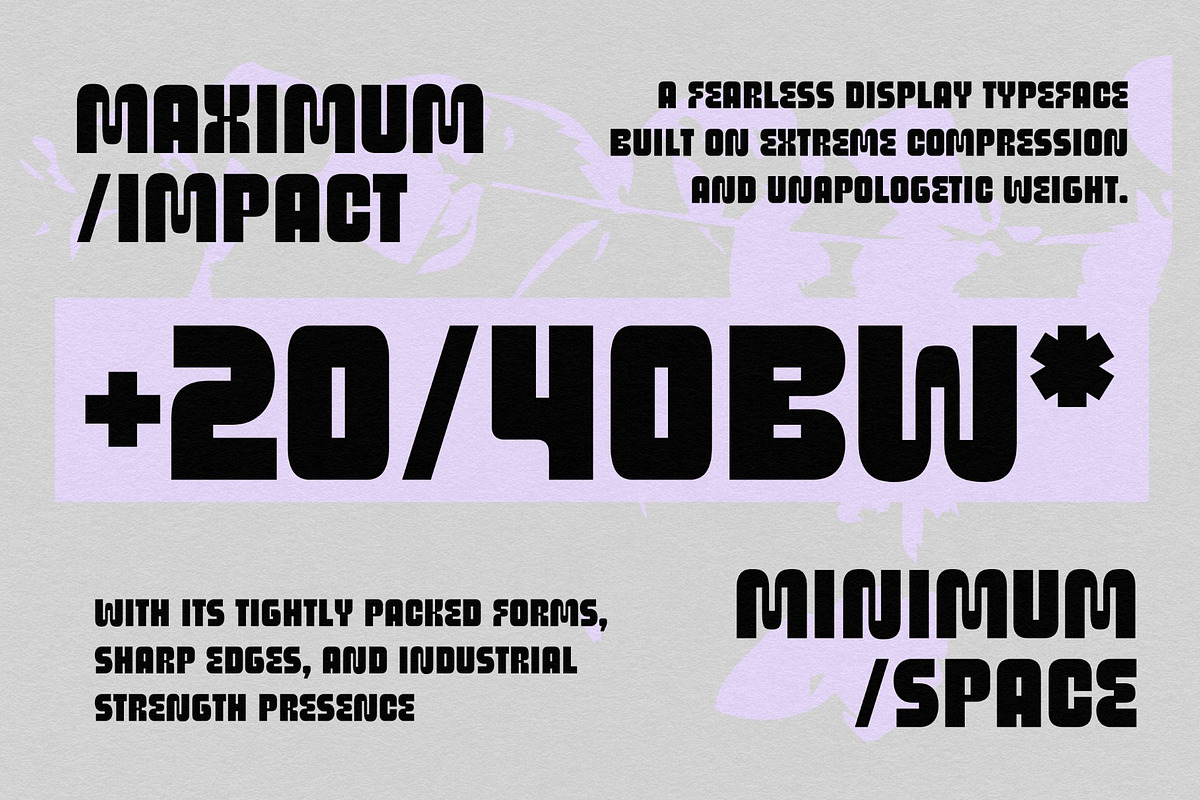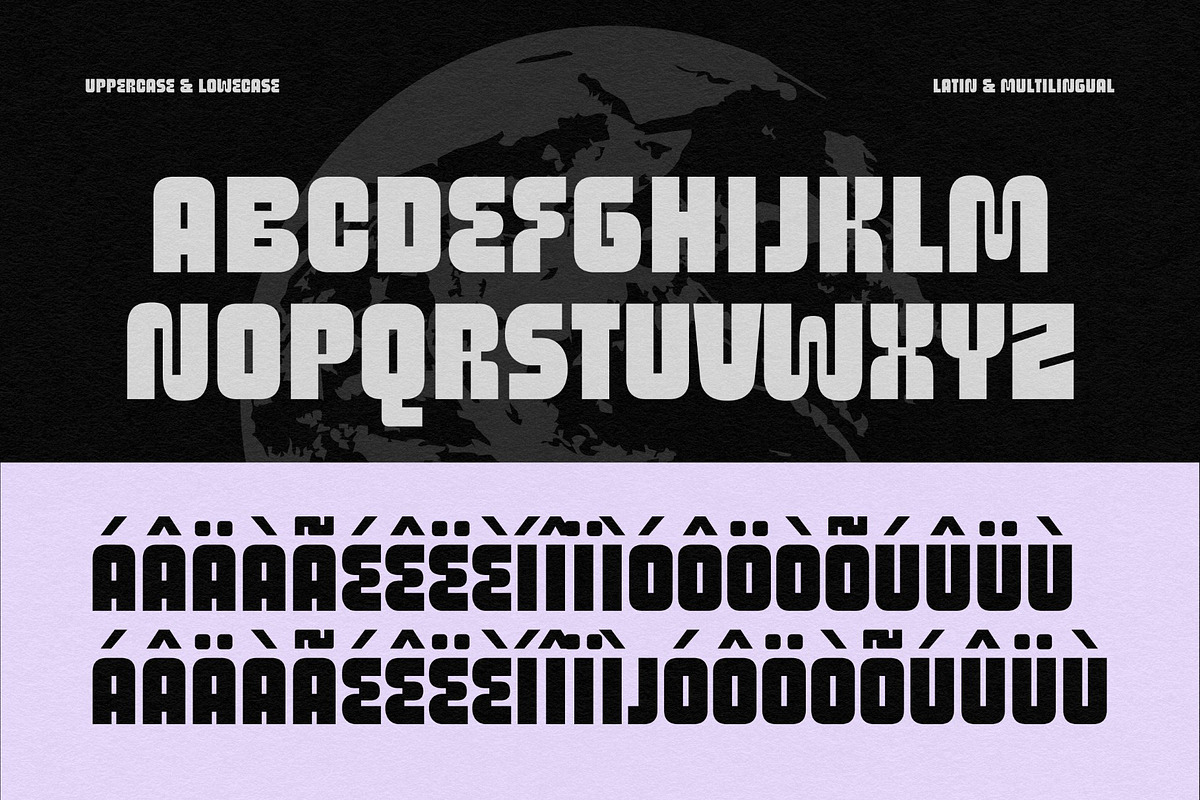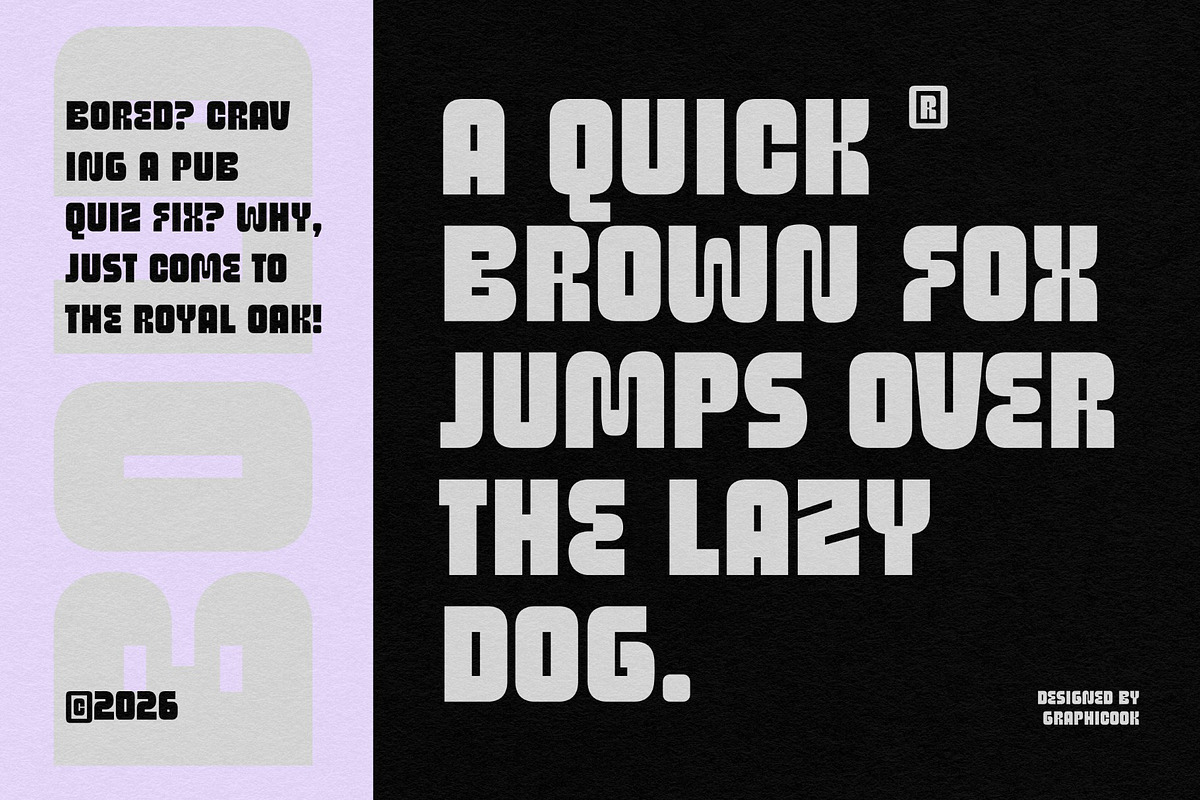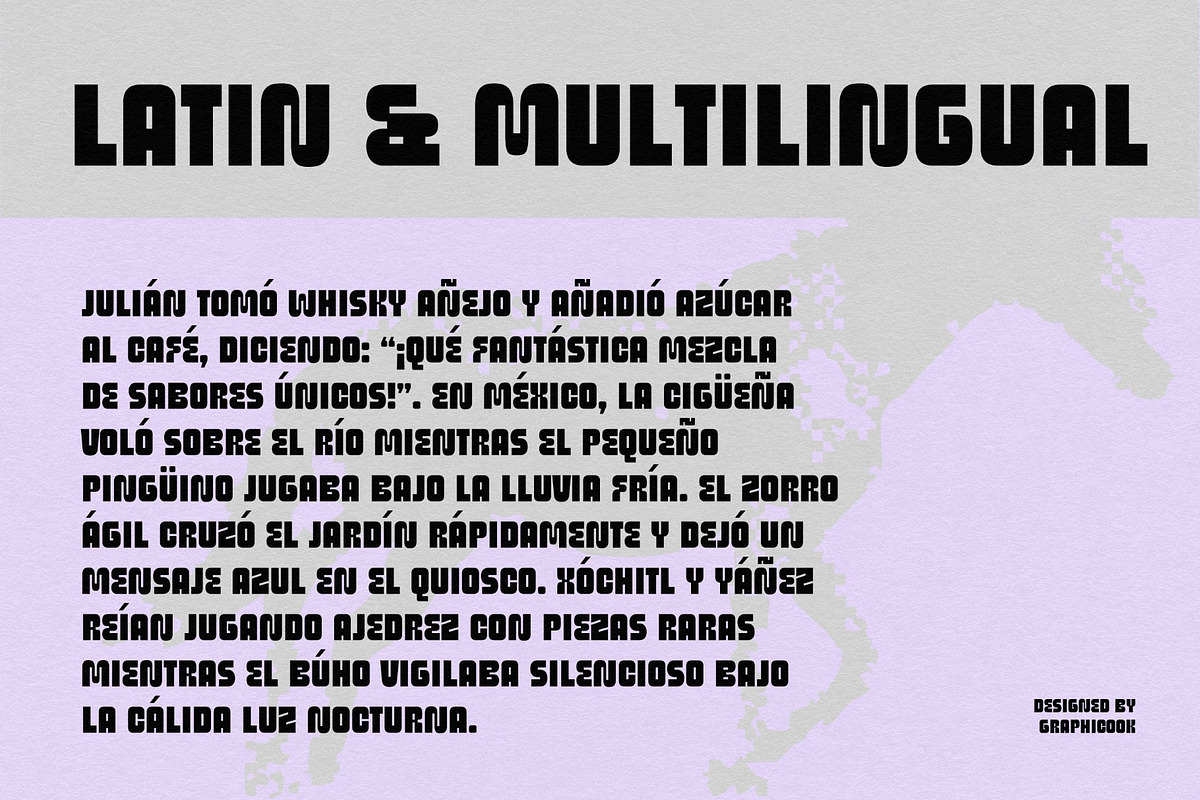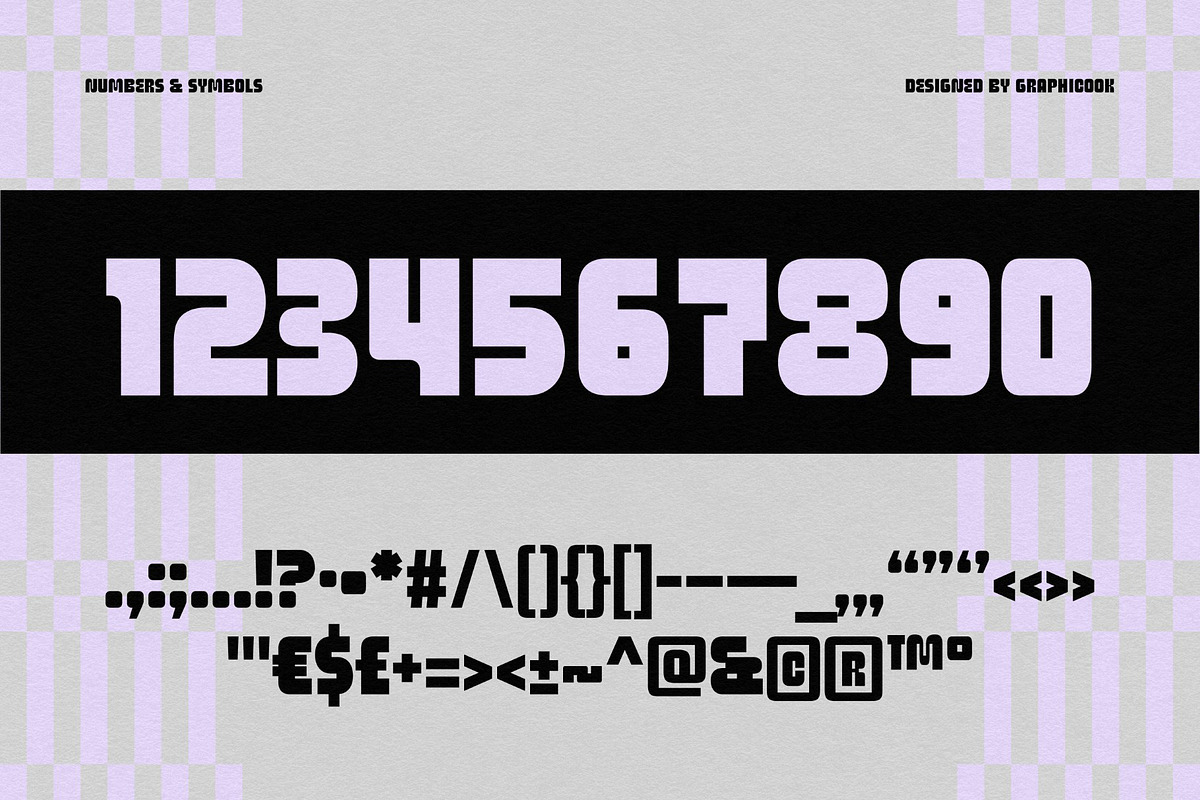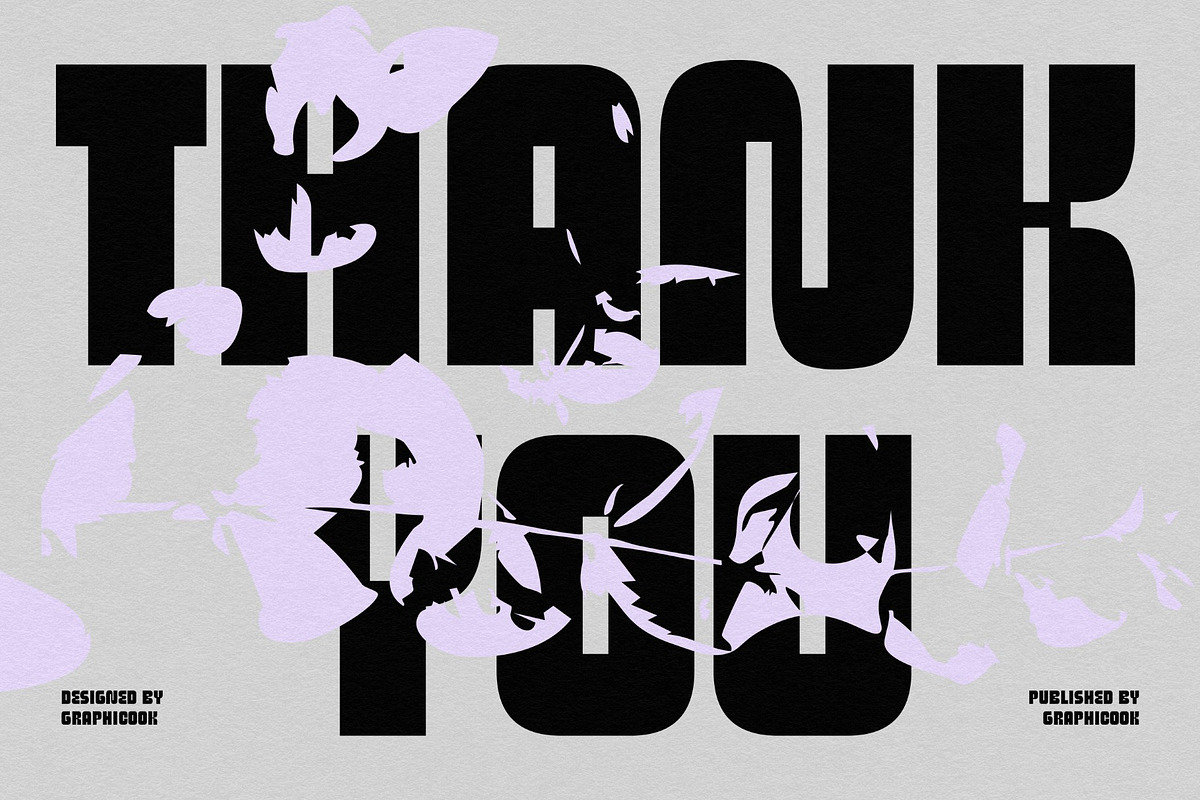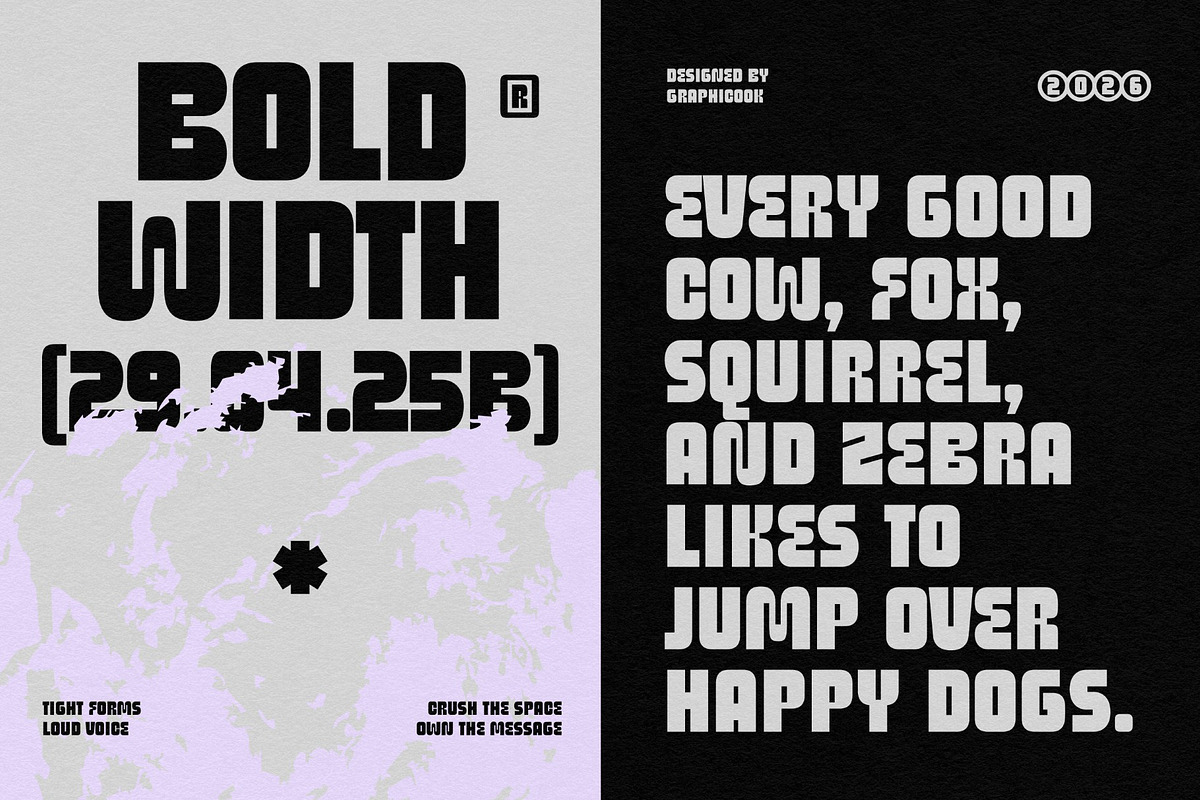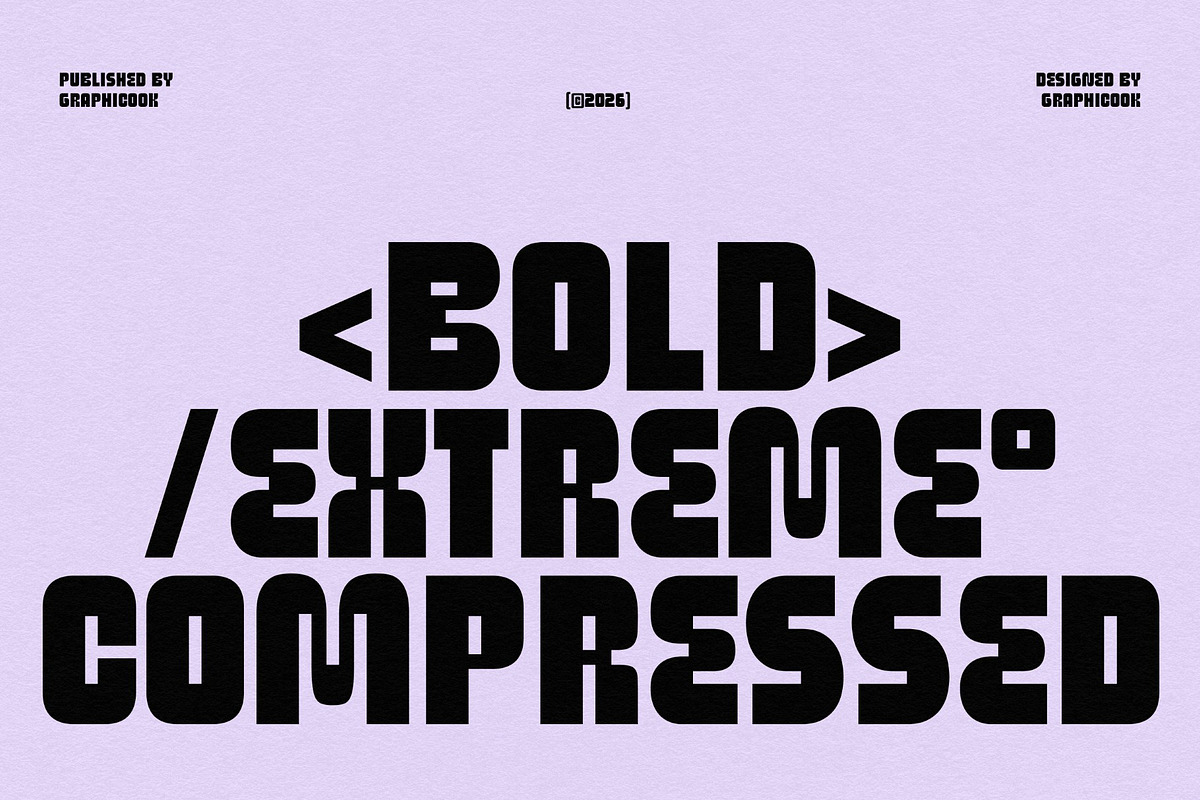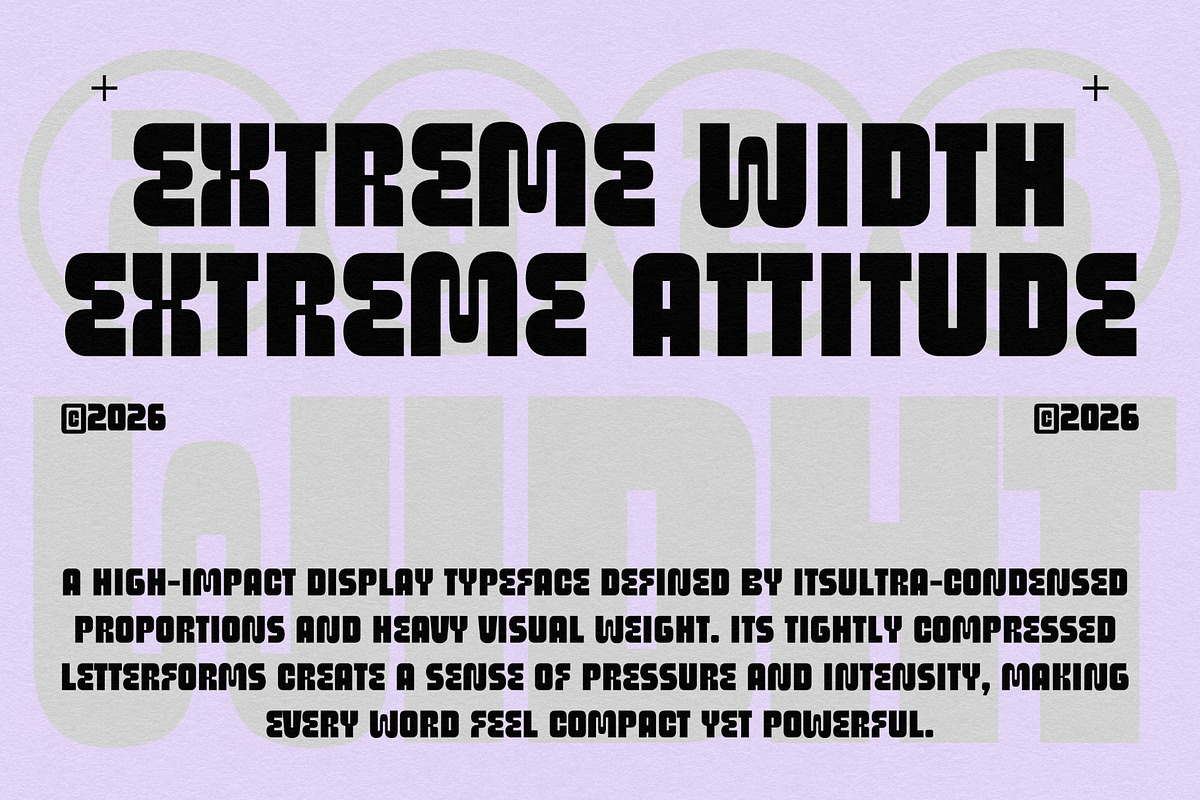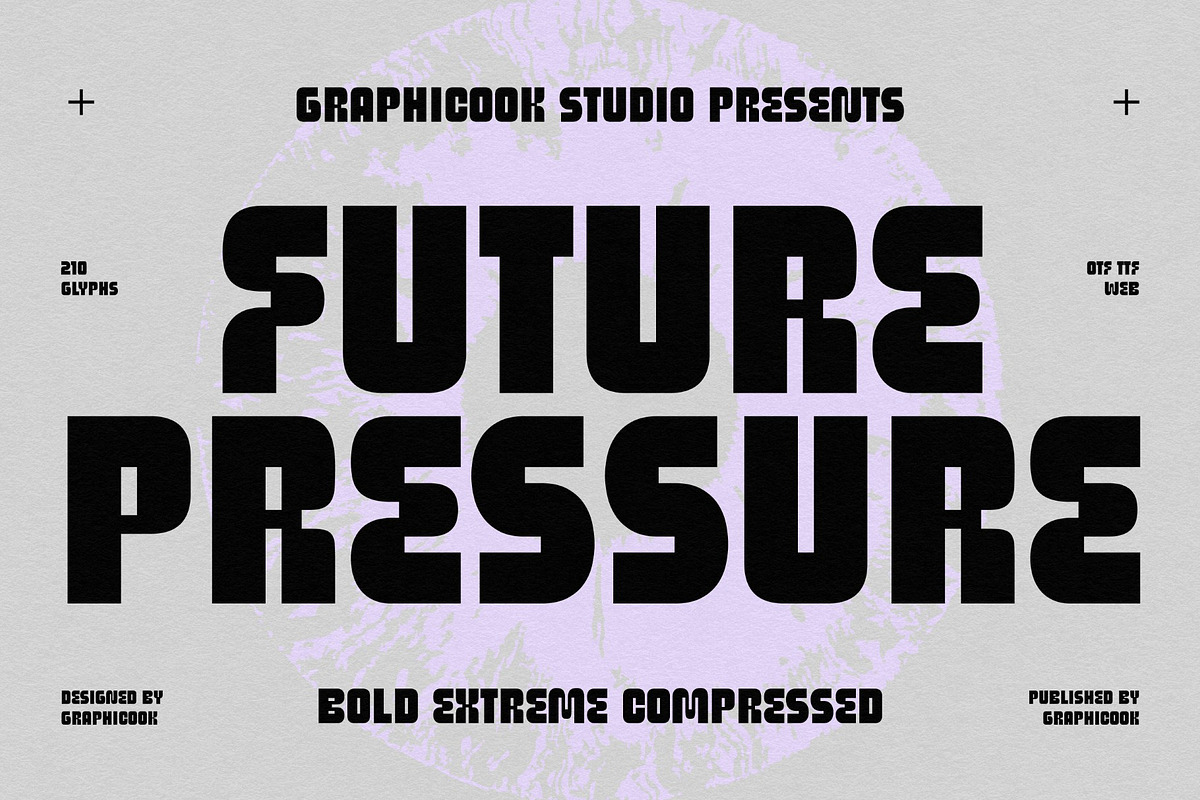
Future Pressure
Future Pressure font is a bold, ultra-condensed sans-serif display font with thick, tall geometric letterforms that deliver a modern and futuristic look. Its strong, sporty, and industrial character ensures excellent readability, making it perfect for logos, posters, branding, packaging, esports, fashion, technology, social media, editorials, and any project that demands bold typography with maximum visual impact.
It is perfect for headlines, logotypes, magazines, packaging, quotes, movies, games, cover albums, book covers, and flyers, it's a perfect solution for creating eye-catching designs that stand out in any context.